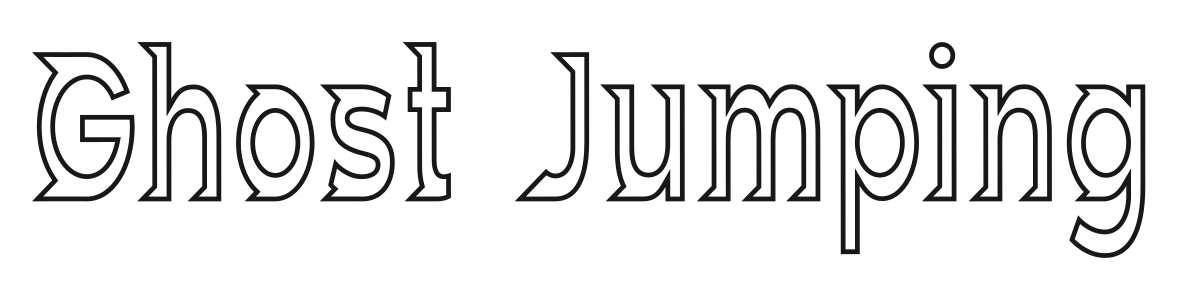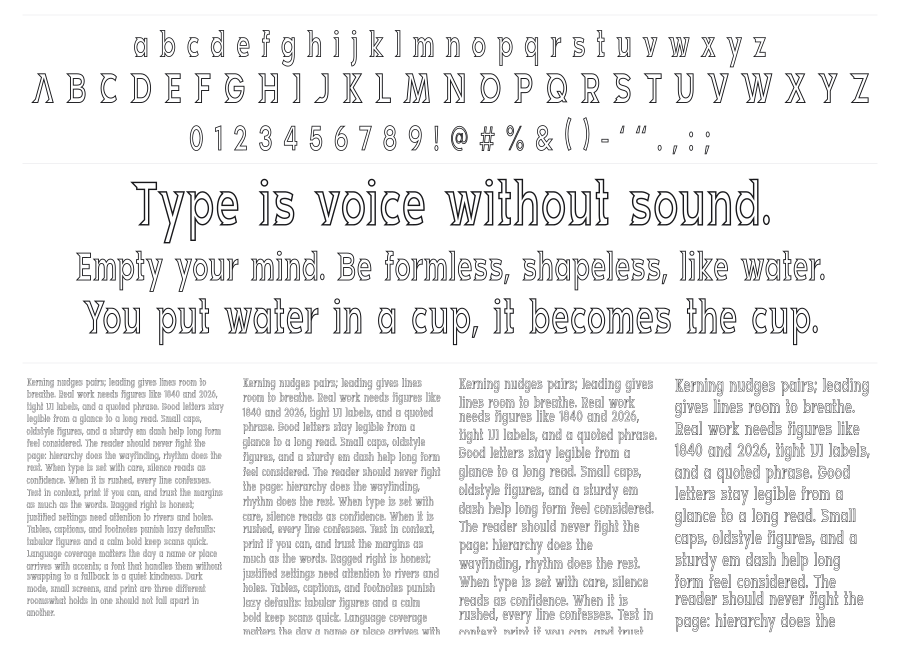
Ghost Jumping
Ghost Jumping is an outlined slab-serif with softly rounded corners and a friendly, retro character. The double-stroke construction gives it a hollow, light-catching quality that reads well at large sizes on posters and packaging. Its casual warmth makes it a natural choice for events, games, or seasonal branding.